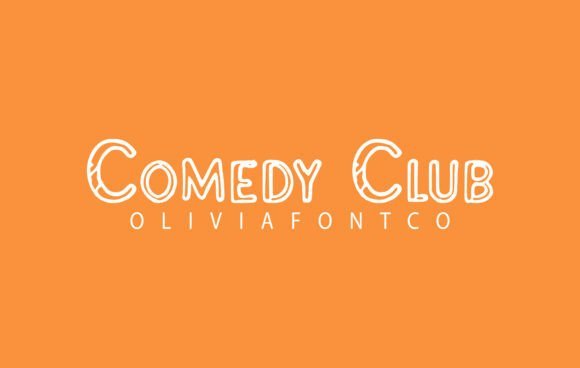
The Perfect Script for Your Next Creative Masterpiece
You’ve spent hours brainstorming, pouring your heart and soul into a project that you just know is going to be a game-changer. The ideas are flowing, the concept is solid, and all that’s left is to bring it to life. But, there’s one crucial element that can make or break the entire design: the font.
Enter the Comedy Club Font, an authentic handwritten font with a romantic touch that’s guaranteed to elevate your creative ideas to new heights. Whether you’re designing a magazine headline, a social media post, or a wedding invitation, this versatile font is the perfect addition to take your project from good to great. For designers, the Comedy Club Font is a valuable asset that can add a personal touch to any design, making it a true favorite among creatives.
Comedy Club Font Key Features
- Font Family: Comedy Club, with a unique and playful design, ideal for creating humorous and lighthearted content.
- Unique Characteristics: Features a distinctive, hand-drawn feel with exaggerated curves and playful flourishes, adding a touch of whimsy to any design.
Designer Review: Comedy Club Font
Comedy Club Font is a quirky, hand-drawn font that’s sure to bring a smile to your face. I love the creative approach it takes to typography, blending vintage and modern elements in a unique way. ✨ The font’s irregularities and flourishes add a touch of personality to any design, making it perfect for projects that need a lighthearted or humorous tone.
- ✨ Unique blend of vintage and modern styles
- ✨ Irregularities and flourishes add personality to designs
- ✨ Suitable for projects with a lighthearted or humorous tone
However, I do have a few reservations about Comedy Club Font. ⚠️ The font’s irregularities, while charming, can sometimes make it difficult to read, especially at smaller font sizes. Additionally, the font’s character set is somewhat limited, which may be a concern for designers working on projects that require a wide range of characters.
- ⚠️ Irregularities can make it difficult to read at smaller font sizes
- ⚠️ Limited character set may be a concern for certain projects
Overall, Comedy Club Font is a fun and creative option for designers who want to add a touch of personality to their work. While it may not be the best choice for every project, it’s definitely worth considering for designs that need a lighthearted or humorous tone.
Practical Application Guide for “Comedy Club Font”
“Comedy Club Font” is ideal for:
Designing humorous posters or flyers.
Creating comedic social media graphics.
Adding a lighthearted touch to presentations or documents.
Designing humorous invitations or greeting cards.
Alternatives to Comedy Club Font
Playfair Display is a luxurious, high-end serif font perfect for titles and headings. It features elegant flourishes and a classic feel that works well for formal events and high-end branding. Use it when you want to convey sophistication and luxury.
Compared to Comedy Club Font, Playfair Display is more formal and less playful. While Comedy Club Font is often used for casual, comedic content, Playfair Display is better suited for more serious or high-end applications.
Great Vibes is a modern, elegant script font that works well for titles, headings, and body text. It features a flowing, cursive design that adds a touch of sophistication to any design. Use it when you want to convey a sense of elegance and refinement.
Compared to Comedy Club Font, Great Vibes is more elegant and refined. While Comedy Club Font is often used for casual, comedic content, Great Vibes is better suited for more formal or high-end applications.
Does the Comedy Club Font support ligatures and contextual alternates?
Yes, the Comedy Club Font includes a comprehensive set of ligatures and contextual alternates, allowing for more expressive and nuanced typography. These features can be accessed through your design software’s font menu or by using OpenType features in your layout.